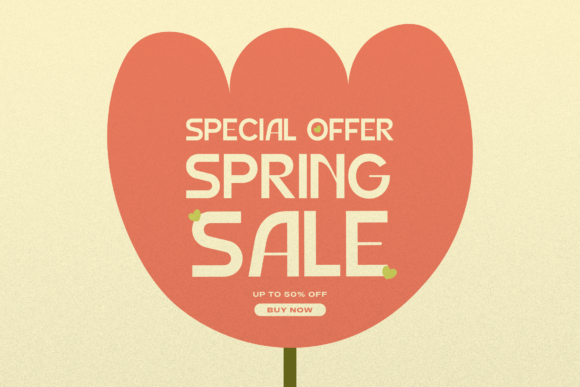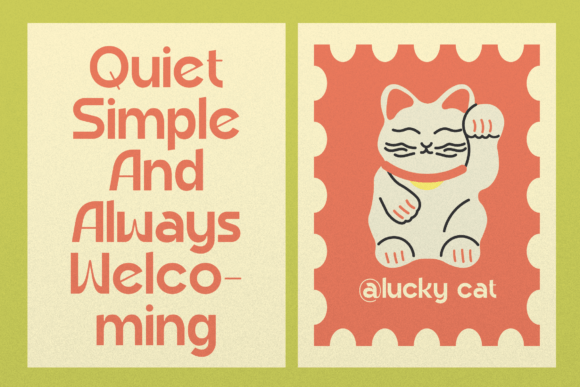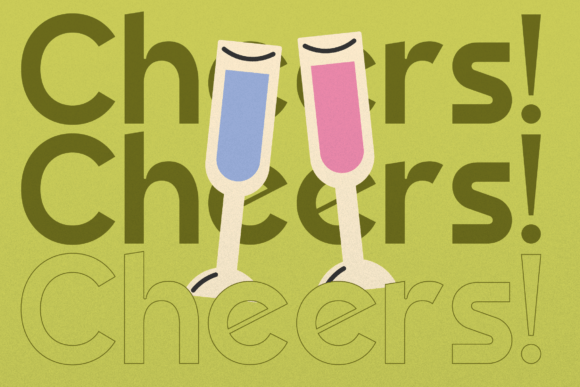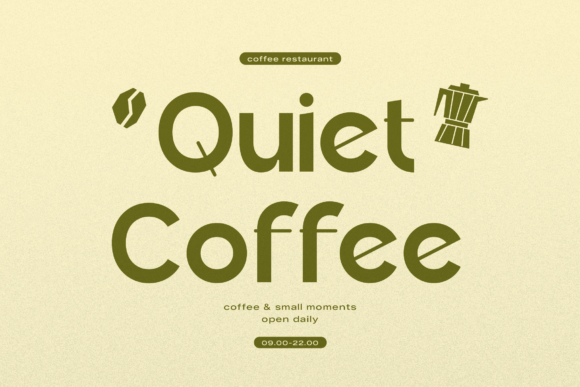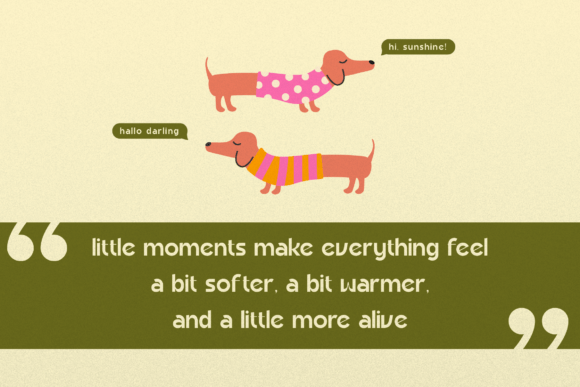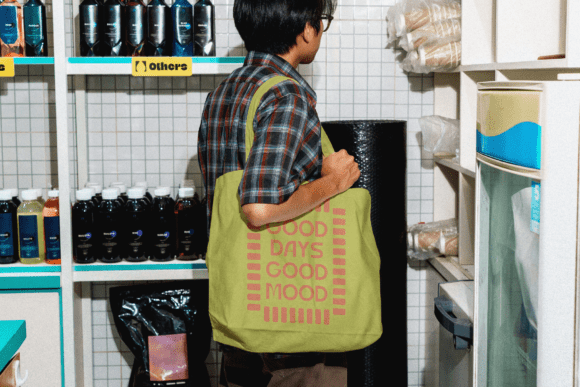
Introduction to Nemilar Font
Illuminate your brand with Nemilar, a contemporary display sans serif that captures a “radiant-and-refined” soul.
This font features medium-weight, geometric letterforms uniquely characterized by rhythmic, sharp-flared terminals and elegant “sparkle” accents that bridge the gap between retro-revival aesthetics and modern minimalist branding With its balanced structural weight and optimistic personality, Nemilar is the premier choice for independent lifestyle boutique identities, boutique organic skincare logos, high-end wellness packaging, and high-impact “chic-and-cheerful” social media headers.